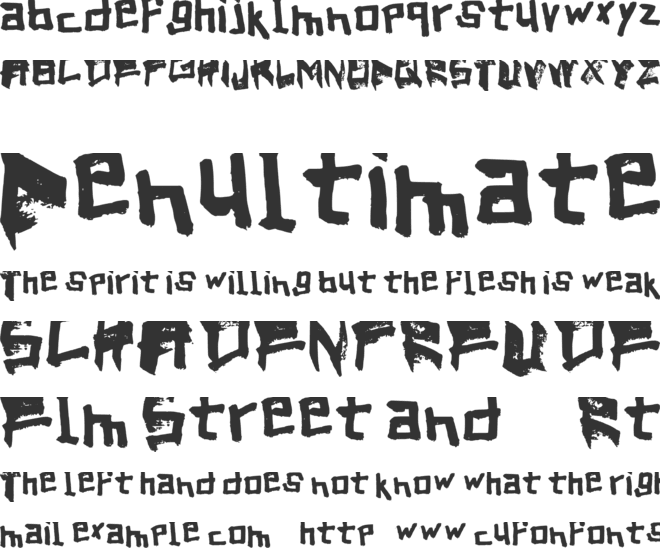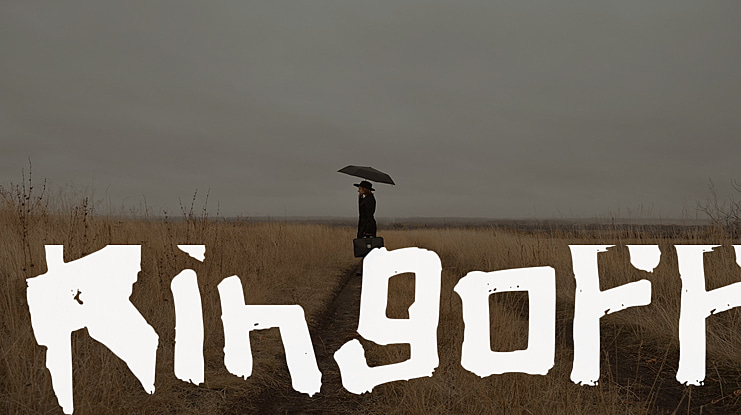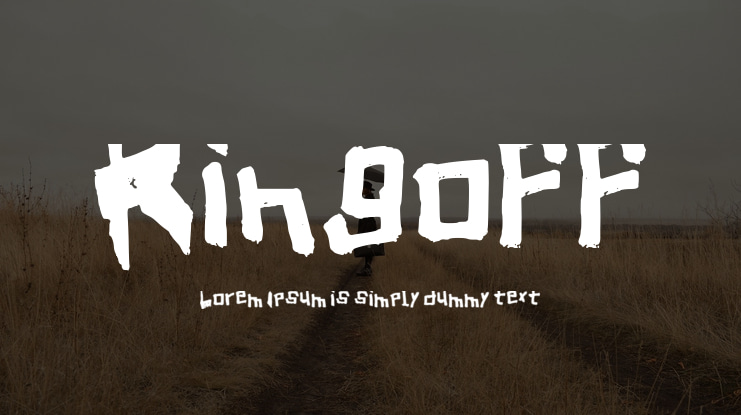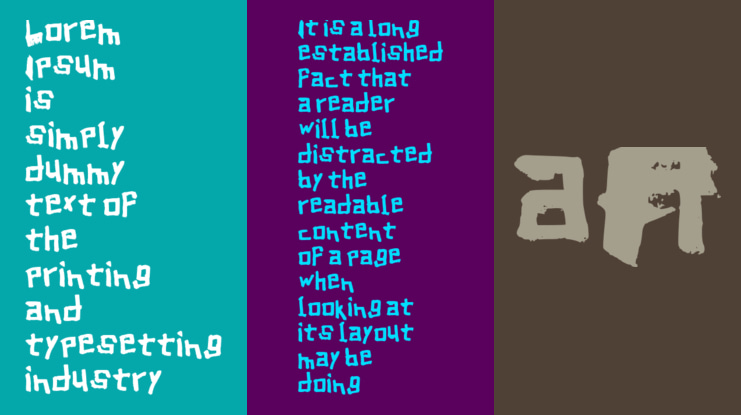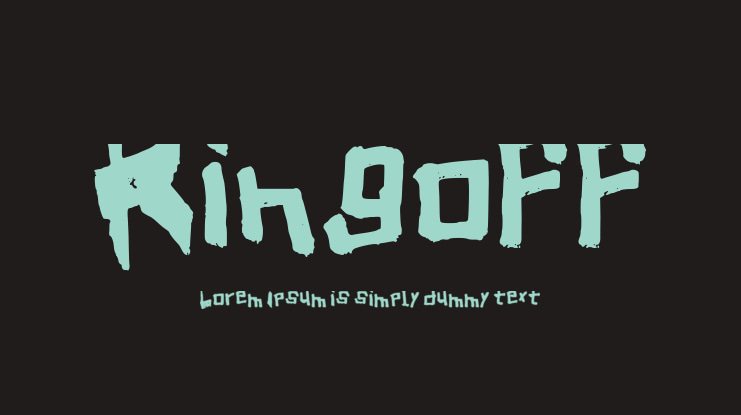
Kingoff Font
The first typography font by Czech typograph Michal Kral. I was inspired by graffiti of the second-largest city in the Czech Republic Brno. His next work was for example font Betwind Regular.